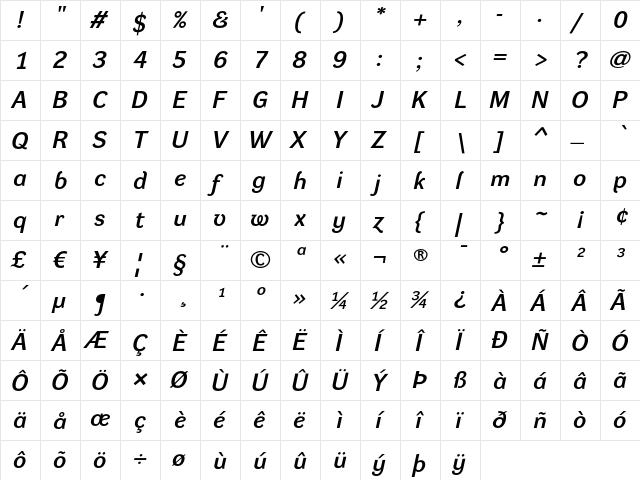
DynaGrotesk DE Italic Font Preview
DynaGrotesk DE Italic
DynaGrotesk DE Italic Font Details
Design Context for DynaGrotesk DE Typeface
DynaGrotesk DE takes a clean, functional approach — its unadorned letterforms prioritise legibility and work reliably across screen and print environments. Its italic angle brings a sense of urgency and motion to the letterforms.
Font Pairing: Works well alongside a characterful serif or display font that can carry the expressive load while DynaGrotesk DE handles the functional copy.
Pro Tip: Use DynaGrotesk DE for UI labels, navigation, and short-form body copy where clean legibility is the priority.